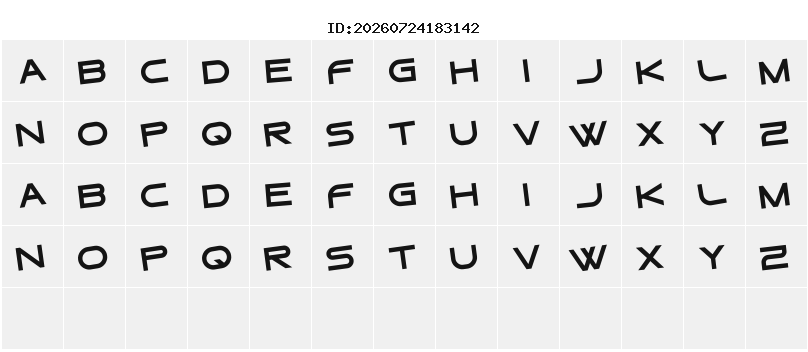
Gtek Regular Preview
• Font Name: Gtek Regular
• Font ID: Gtek Regular:Version 1.00
• Full Font Name: Gtek Regular
• Version: Version 1.00 October 6, 2013, initial release
• PostScript Name: GtekRegular
• Copyright: Gtek Regular © (By Carlos Matteoli). 2013. All Rights Reserved
• Designer: Carlos Matteoli
About Gtek Regular.ttf
Gtek Regular.ttf is a modern, elegant sans-serif font designed for ultimate readability and visual harmony. Perfect for branding, headlines, web design, and print materials.